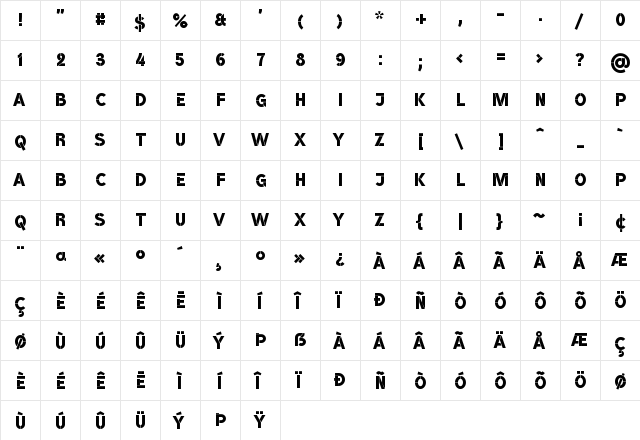
BroshK Medium Font Preview
BroshK Medium
BroshK Medium Font Details
| Foundry | gluk |
| Designer | gluk |
Design Context for BroshK Typeface
BroshK is a composed and adaptable typeface that performs quietly and consistently across a wide range of design contexts.